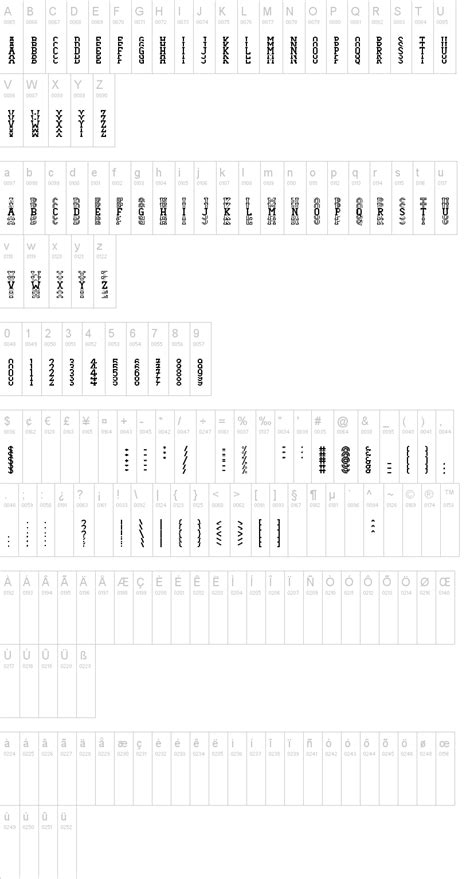
Stacked looks stacked, yet features and cool chunky and classy. Web archive of freely downloadable fonts. Browse by alphabetical listing, by style, by author or by popularity. Browse by alphabetical listing, by style, by author or by popularity. Web archive of freely downloadable fonts. Web 6,452 downloads (674 yesterday) free for personal use. By dafont december 23, 2023. Archive of freely downloadable fonts.
Web archive of freely downloadable fonts. Browse by alphabetical listing, by style, by author or by popularity. Archive of freely downloadable fonts. Web archive of freely downloadable fonts. Browse by alphabetical listing, by style, by author or by popularity. By dafont december 23, 2023. Web archive of freely downloadable fonts. Stacked looks stacked, yet features and cool chunky and classy. Web 6,452 downloads (674 yesterday) free for personal use.